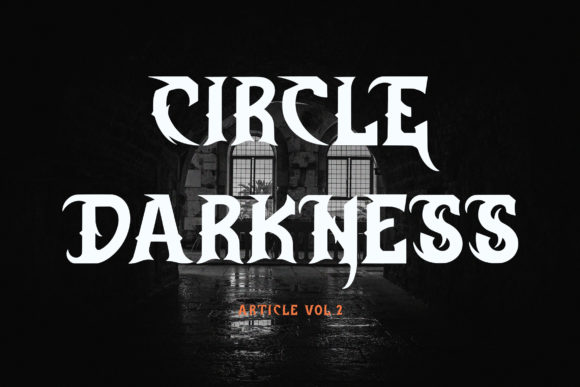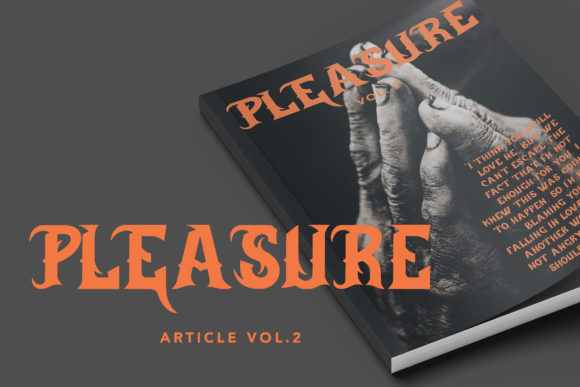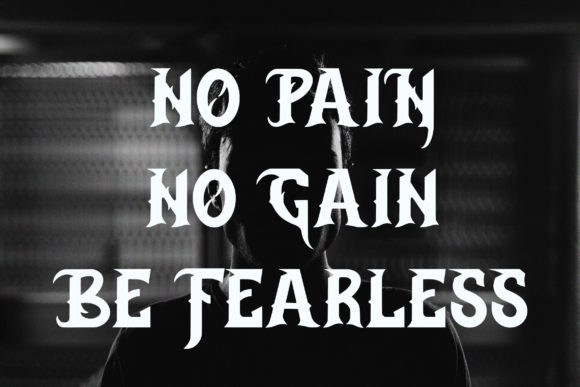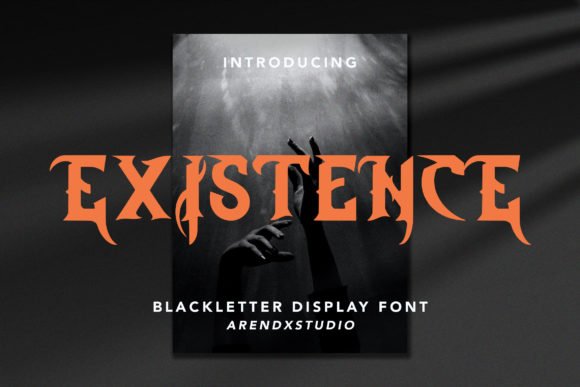
Introduction to Existence Font
Existence is a blackletter font inspired by gothic and horror styles.
Because of its shape, this font is very unique and is perfect for any project that you wish to create Existence has OpenType features such as stylistic alternates, stylistic sets & ligatures good for logotypes, posters, badges, book covers, T-shirt designs, packaging, and more.
Key Features of Existence Font
Why Choose Existence Font?